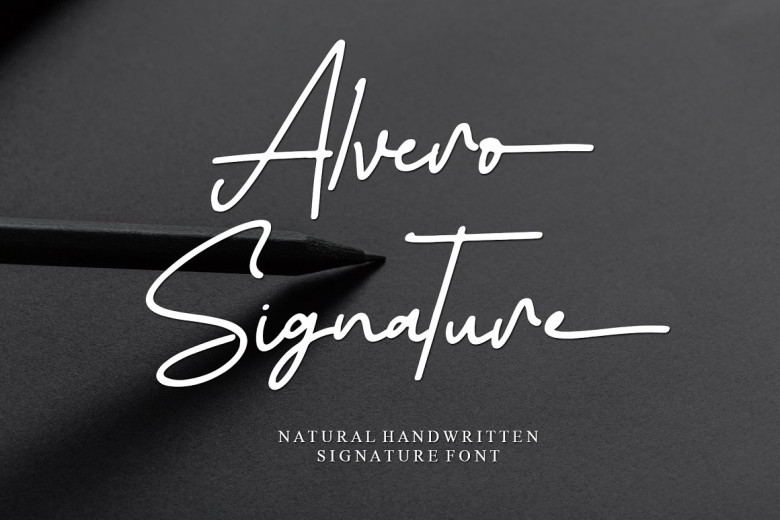
Alvero Signature Font
Alvero Signature features an appealing handwritten font with an intriguing and whimsical appearance, creating a contemporary and classy aesthetic. Ideal for logos and branding purposes as well as wedding invitations, stationery and other designs.